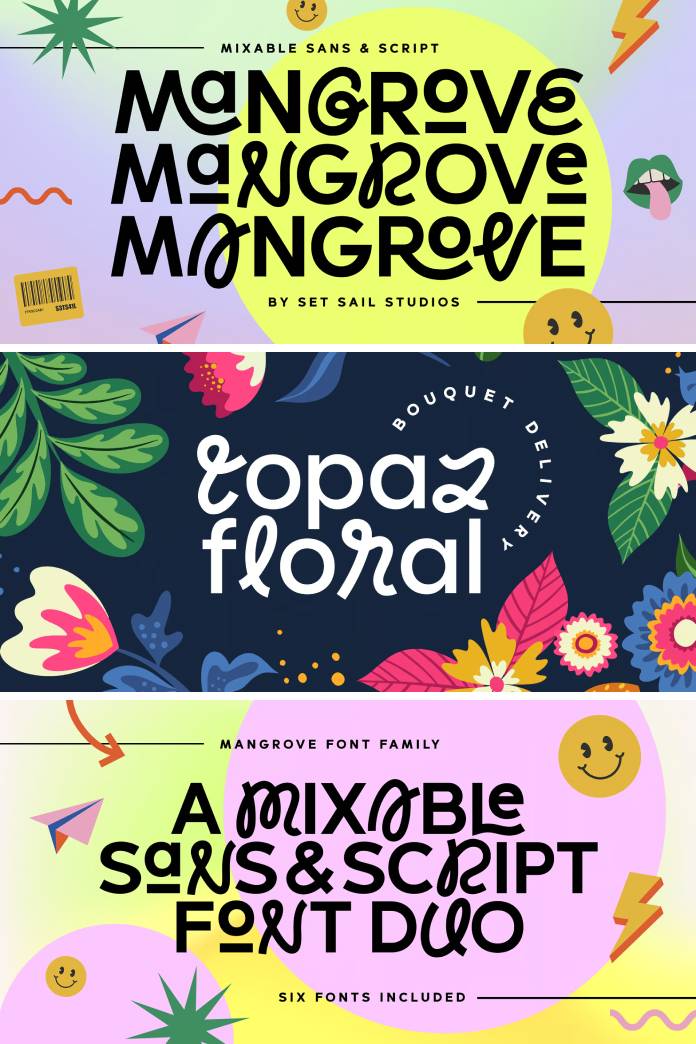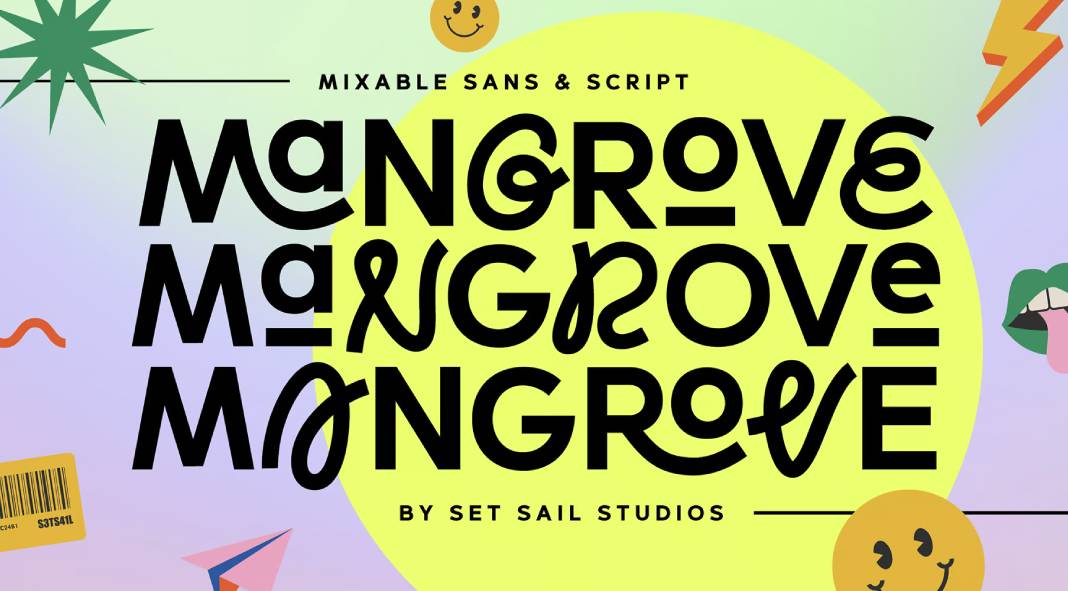
Embrace Creativity with the Mangrove Font Duo: A Playful Typeface Pairing.
I’ve said it many times, finding a font that effortlessly combines playfulness with versatility is a quest for many designers. Enter the Mangrove font duo, a creation by Set Sail Studios that breathes life into letters, offering a delightful fusion of Sans and Script fonts. This font family isn’t just a typographic tool—it’s a canvas waiting for creative expression.
Carefully crafted, the Mangrove Font Duo isn’t just a random pairing of fonts; it’s a meticulously balanced set designed to shine both individually and together. The marriage of Sans and Script fonts in this duo isn’t just harmonious; it’s an artful dance that brings forth typography bursting with personality and charm.
The beauty lies not just in the standalone usage of these fonts but in their seamless integration. Mixing a script letter within the sans font, experimenting with swooping sans ligatures, or embracing its uplifting small caps opens Pandora’s box of possibilities for designers. Whether utilized in lowercase or uppercase, the Mangrove Font Duo offers a spectrum of options. With three weights per font, this duo offers a sumptuous total of six fonts, a playground for creative minds.
The versatility of the Mangrove Font Duo is a testament to its adaptability across various design projects. From branding materials to packaging, invitations to social media graphics, this font family adds a touch of whimsy and elegance, breathing life into each project it graces.
Imagine the playfulness of the script font dancing alongside the structured yet inviting sans-serif counterpart. The result? Typography that not only communicates but also resonates with the audience on a visual and emotional level.
But what truly sets the Mangrove Font Duo apart is its ability to transcend boundaries. It’s not confined to a specific design style or industry. Its flexibility allows it to harmonize with diverse aesthetics, ensuring its relevance across a myriad of creative endeavors.
In the hands of a designer, the Mangrove Font Duo is akin to a painter’s palette, offering a spectrum of colors and textures to craft a unique visual story. It’s an invitation to explore, experiment, and elevate design projects with a touch of whimsical sophistication.
Whether you’re a seasoned designer or an enthusiast stepping into the world of typography, the Mangrove Font Duo beckons, inviting you to unleash your creativity and infuse your designs with character, charm, and an undeniable spark.
To sum it up, the Mangrove Font Duo isn’t just a typographic choice; it’s an embodiment of creativity and limitless potential—a duo that transcends mere letters to create captivating visual narratives. With this playful pairing, Set Sail Studios has indeed crafted a typographic gem that empowers designers to breathe life into their creations.